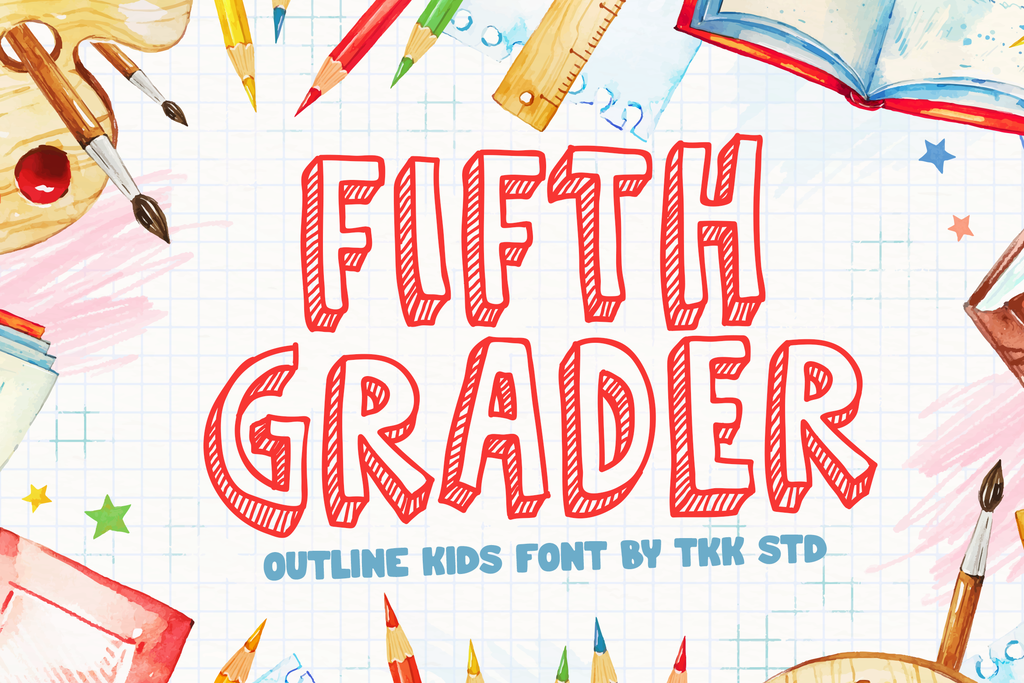
Fifth Grader – Doodle Font
Fifth Grader Display font will emphasize the level of smartness of children in every word it’s written. Suit perfectly for Online Games, poster, movie title, fast food menu, magazine, youtube covers, youtube thumbnails, social media page covers and so on… Happy designing. Whatís Included :